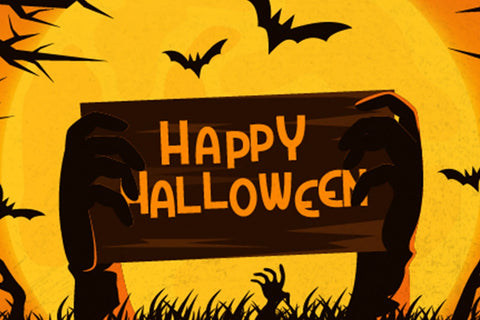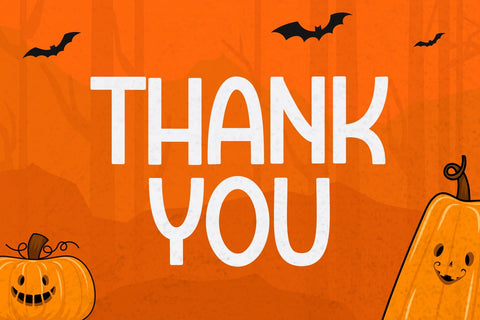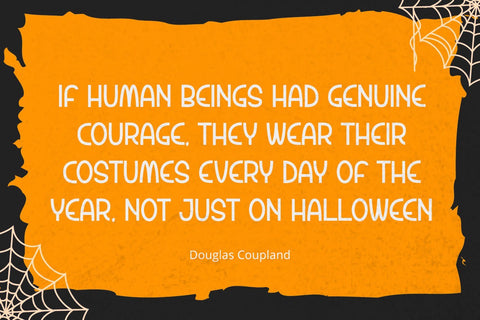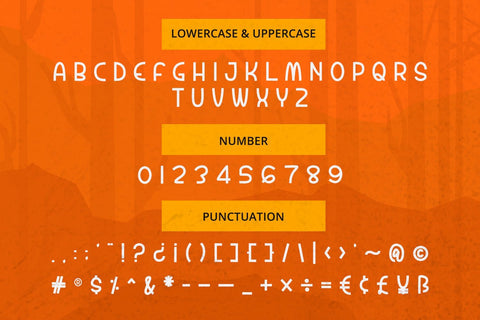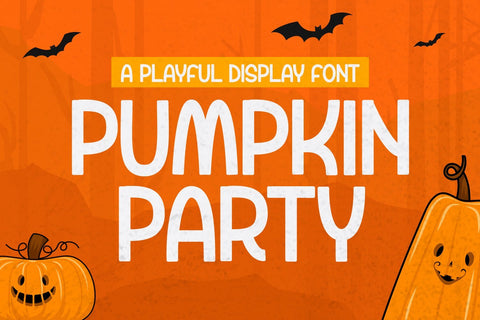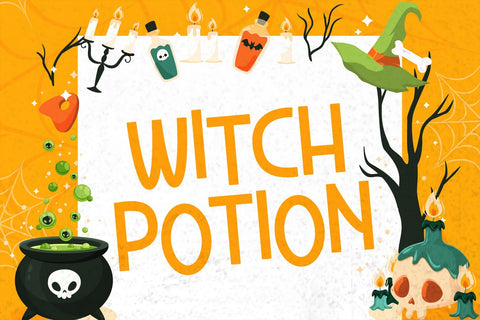
Pumpkin Party - Playful Display Font
Pumpkin Party is a stunning playful display font with cute and casual feels. It will be perfectly used for Branding, Logo Design, Lettering, Logotype, Clothing, Poster, magazine, packaging, posters, shopping bags, t-shirts, book covers, photography, special events and other design project.